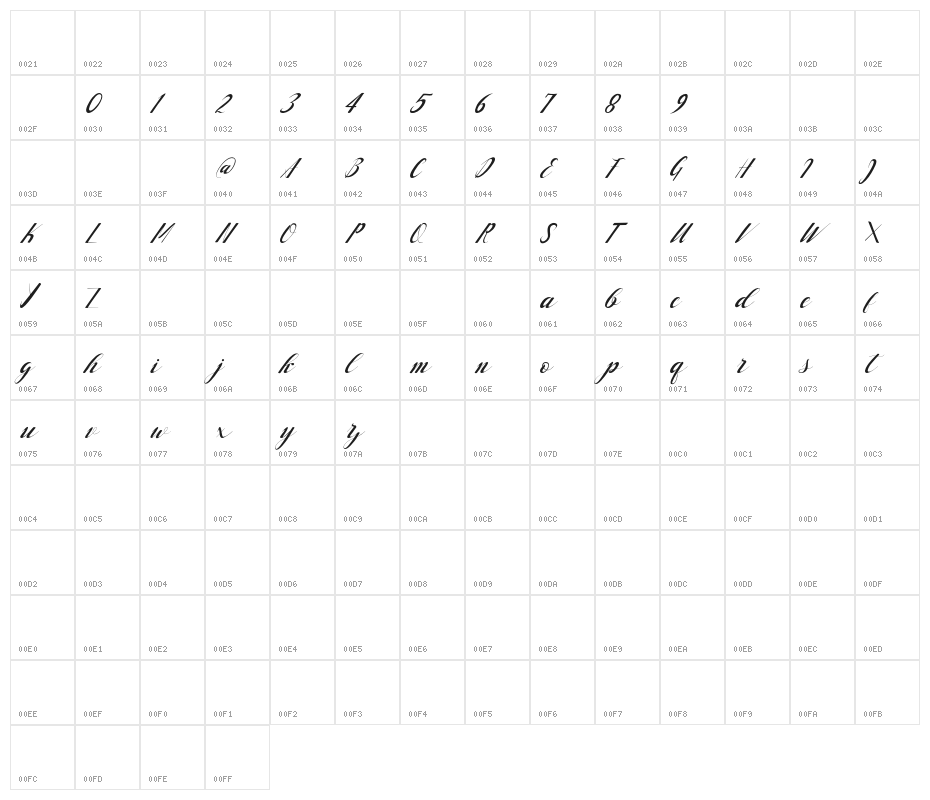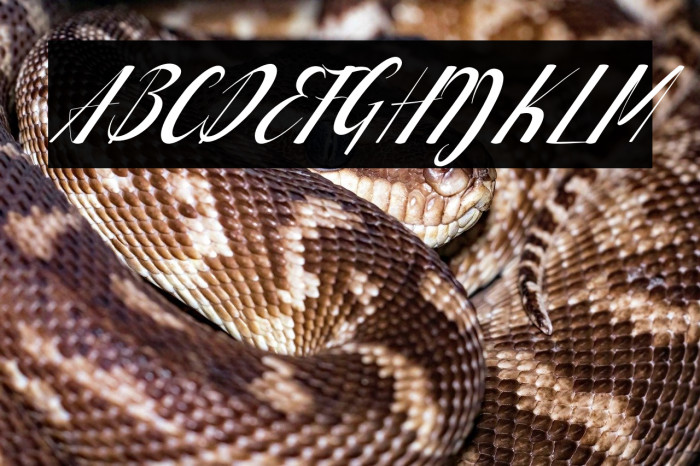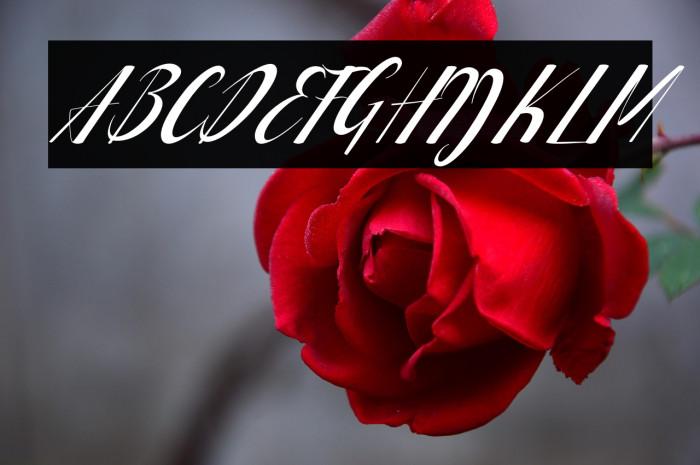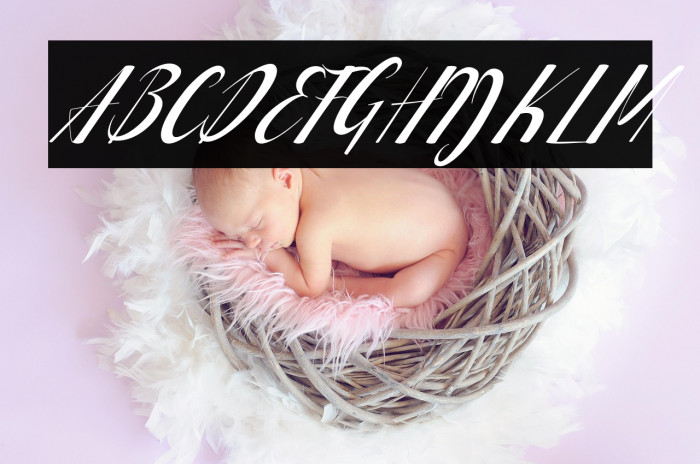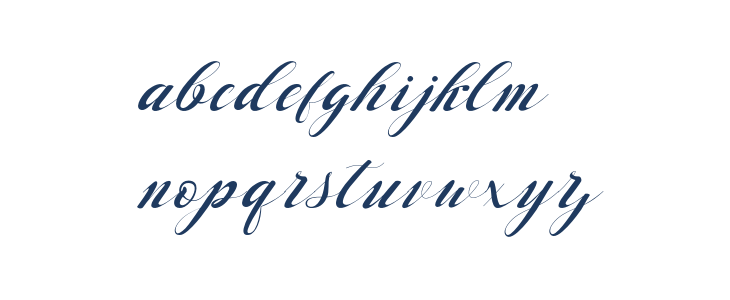
handlove Font
handlove Description
This elegant script font features a flowing, cursive style with high contrast between thick and thin strokes. The uppercase letters are ornate and sweeping, while the lowercase letters maintain a consistent, graceful flow. The numerals are designed to complement the letters with similar curves and strokes. The font's overall appearance is sophisticated and artistic, making it ideal for formal invitations, branding, and decorative purposes. Its unique character shapes and fluid connections between letters give it a distinctive, hand-drawn feel.
| Overall Style | Elegant, Decorative |
| Use Case | Invitations, Branding, Decorative Headlines |
| Proposed Projects | Ideal for wedding invitations, luxury branding, greeting cards, and decorative headlines. |